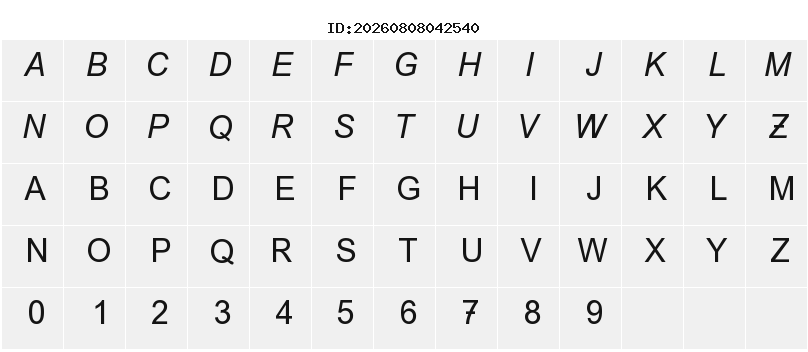
Print Arty Preview
• Font Name: Print Arty
• Full Font Name: Print Arty
About Print Arty.ttf
Print Arty.ttf is a modern, elegant sans-serif font designed for ultimate readability and visual harmony. Perfect for branding, headlines, web design, and print materials.